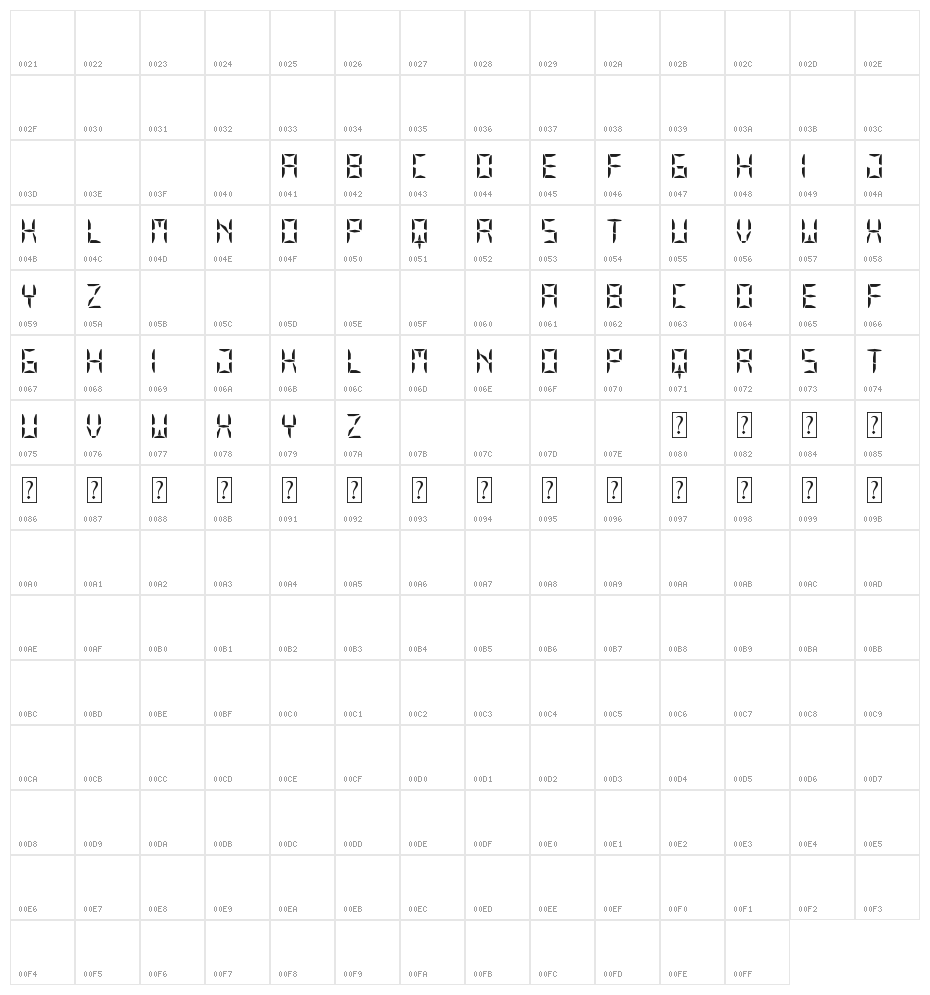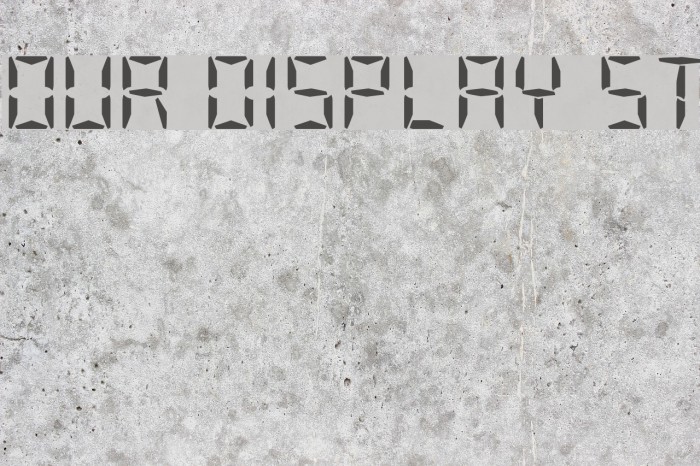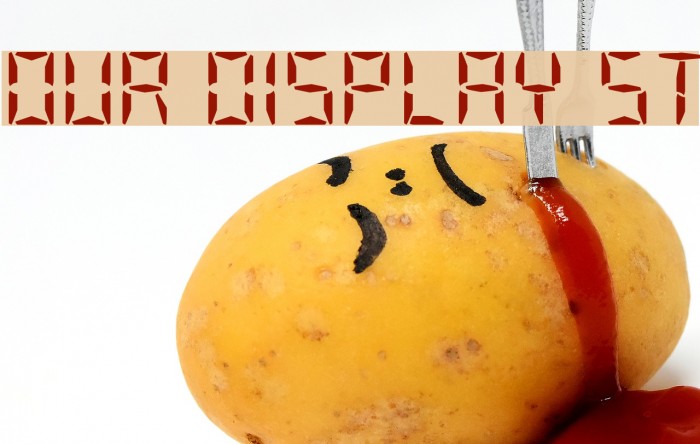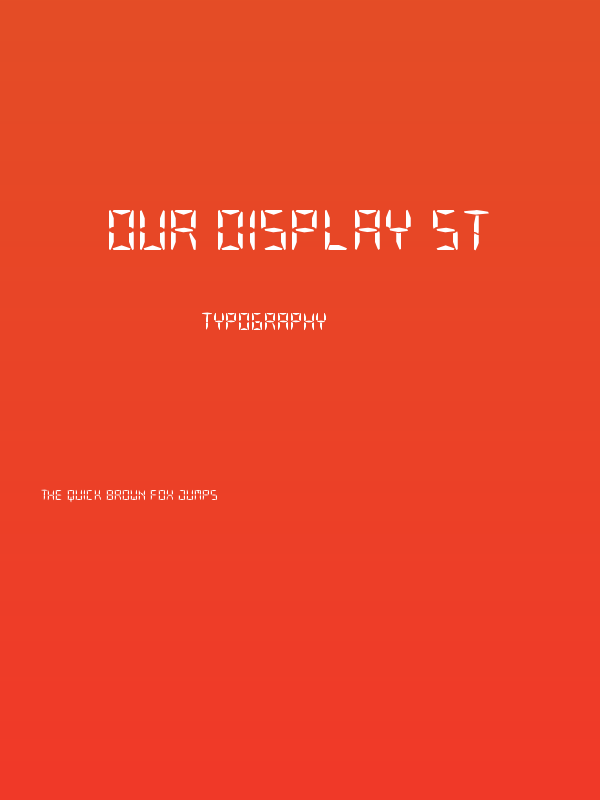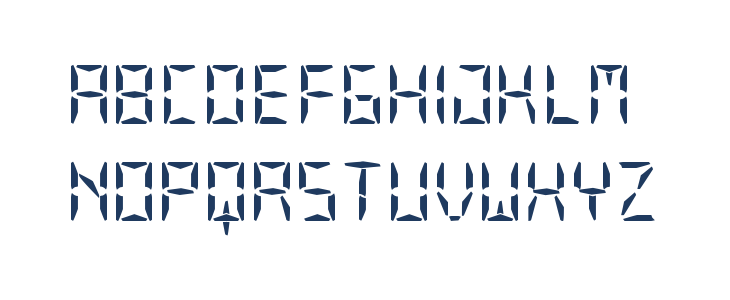
Our Display St Font
Our Display St Description
This font features a unique, geometric style reminiscent of digital or LED displays. Each character is constructed with angular, segmented lines that create a futuristic and technical appearance. The uppercase letters are bold and striking, with a consistent height and width that enhances readability. The design is minimalistic yet distinctive, making it suitable for modern and tech-oriented projects. The font's structure is uniform, with each letter maintaining a similar form, contributing to a cohesive visual experience. Its digital aesthetic is ideal for conveying a sense of innovation and technology.
| Proposed Projects | Ideal for tech branding, digital interfaces, futuristic posters, and electronic-themed designs. |